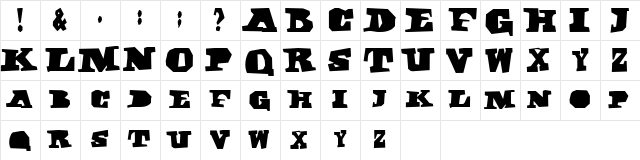
DarkBlack Normal Free Font
Design Context for DarkBlack
DarkBlack is a composed and adaptable typeface that performs quietly and consistently across a wide range of design contexts.